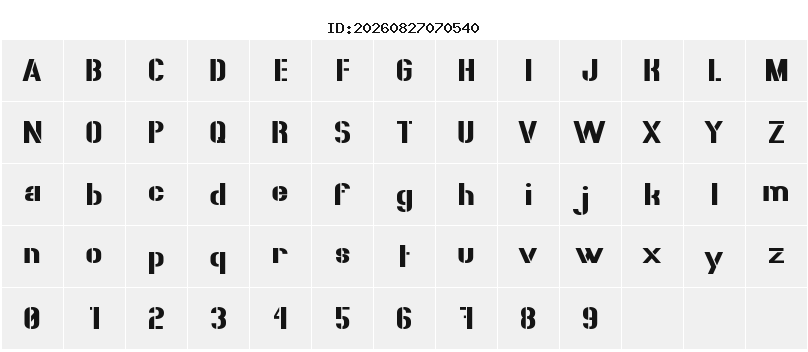
• Font Name: 50 Blizzards
50 Blizzards.ttf is a modern, elegant sans-serif font designed for ultimate readability and visual harmony. Perfect for branding, headlines, web design, and print materials.